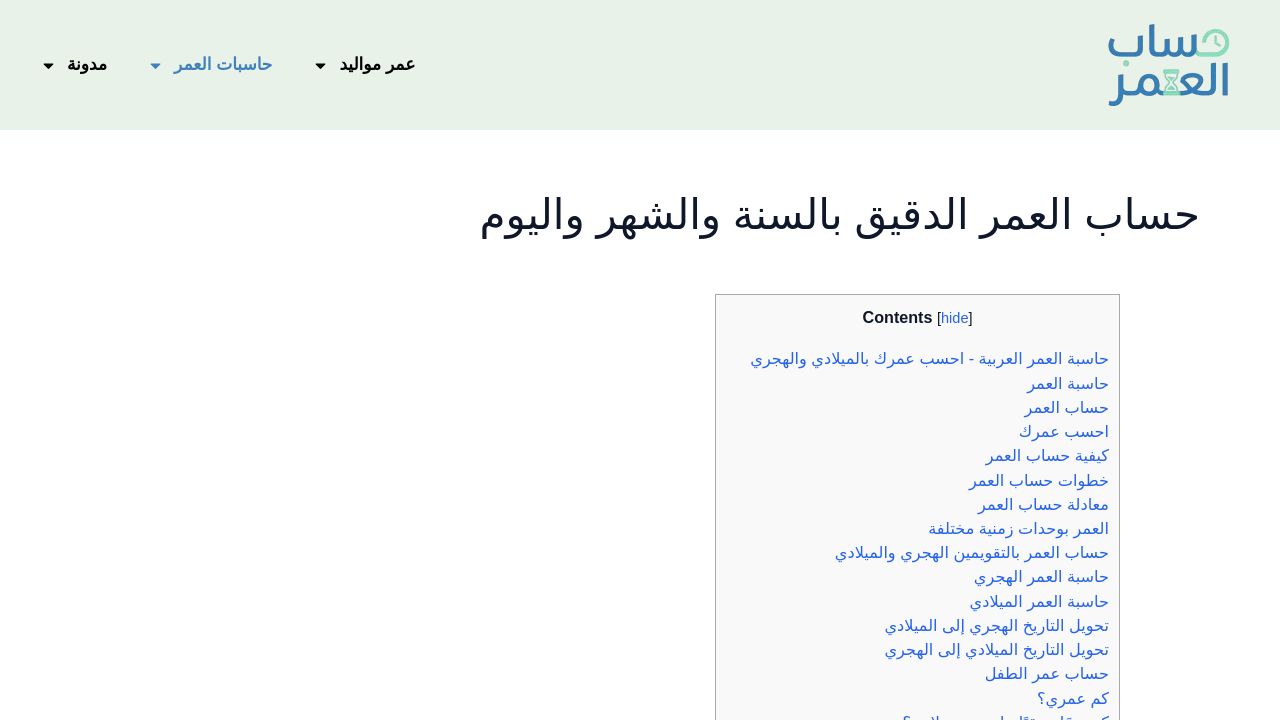
What fonts does Hisab-ul-omar use?
hisab-ul-omar.com specializes in providing precise age calculations using the Cairo font family, which consists of weights ranging from 200 to 900. This choice reflects a focus on clarity and accessibility for users seeking accurate information. The combination of Cairo with fallback options like Arial and Helvetica ensures that the website remains readable across various devices, catering to a wide audience interested in detailed age calculations based on both Gregorian and Hijri dates.
Frequently asked questions about Hisab-ul-omar.com's fonts
What fonts are used on hisab-ul-omar.com?
hisab-ul-omar.com primarily uses the Cairo font family, which includes multiple weights ranging from 200 to 900, ensuring a versatile design.
How does Cairo compare to other fonts?
Cairo offers a unique balance of readability and style, setting it apart from alternatives like Arial and Helvetica, which are also used as fallback fonts.
What styles and weights does Cairo offer?
Cairo is available in a range of styles with weights from 200 to 900, allowing for flexibility in design and emphasis on various elements.